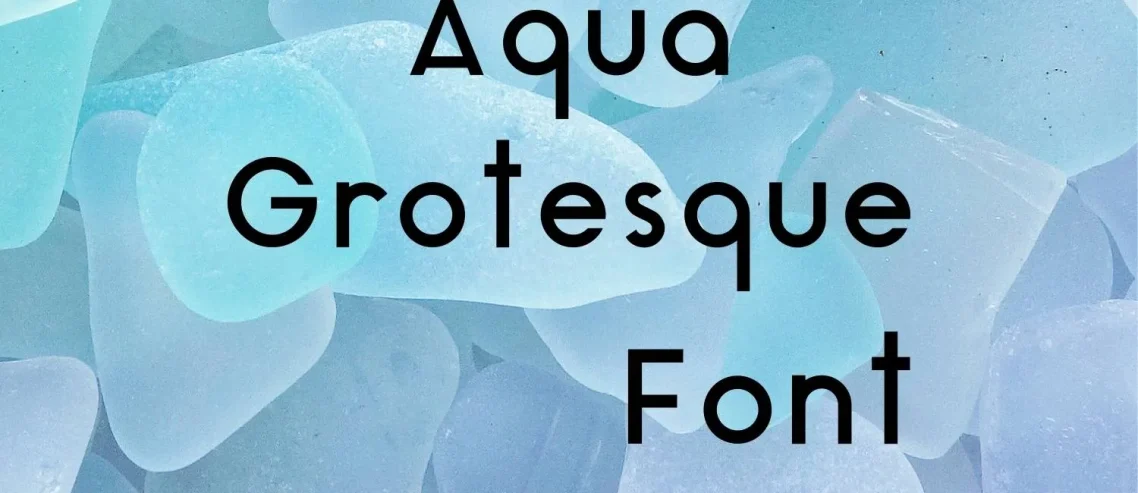
Aqua Grotesque Font Free Download
The Aqua Grotesque Font is a sleek and modern geometric sans-serif font. It is ideal for use in headlines, logos, and other typographic designs. This font comes in both regular and bold weights, making it suitable for a wide range of design projects. This Font is available in both TrueType and OpenType formats, making it …